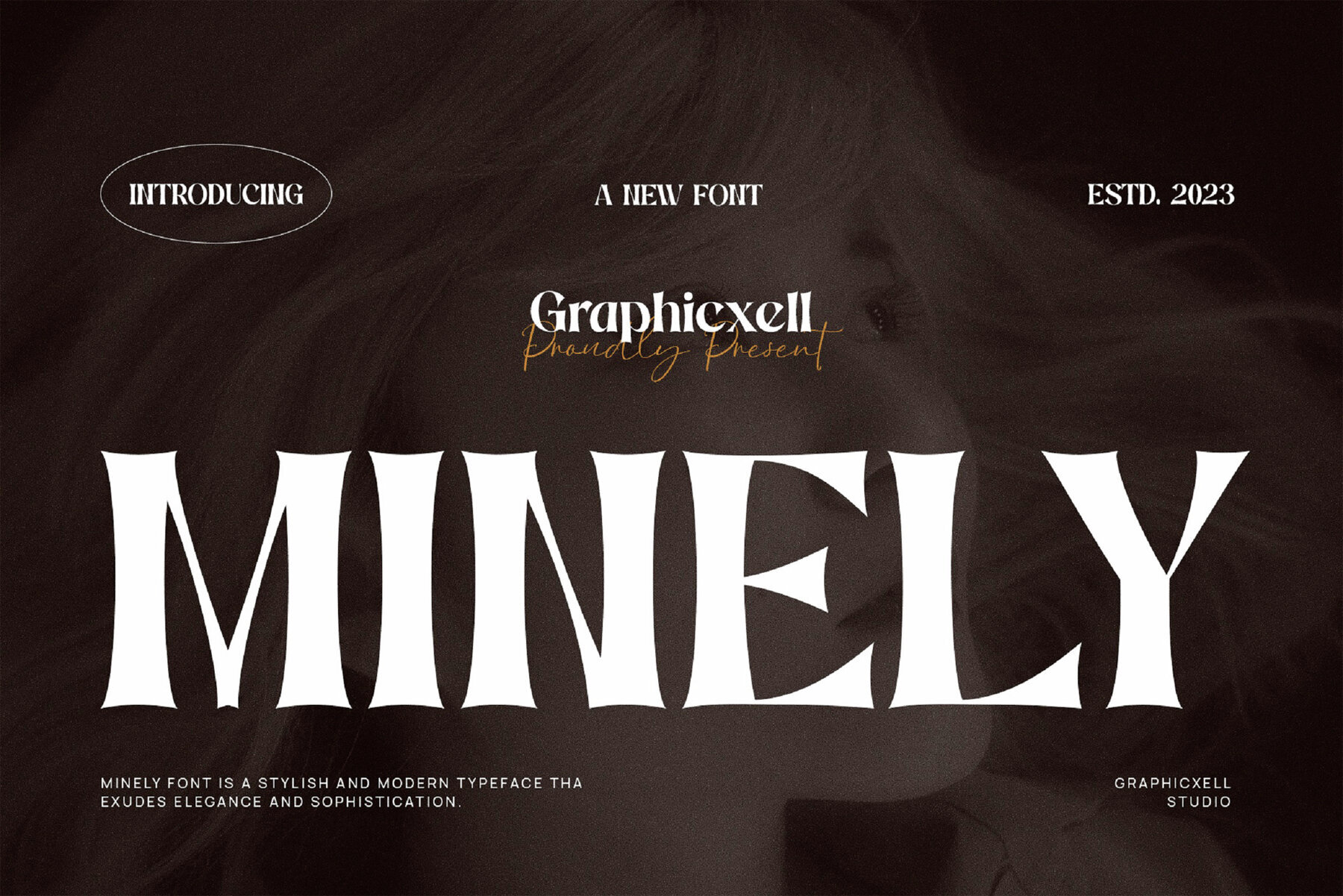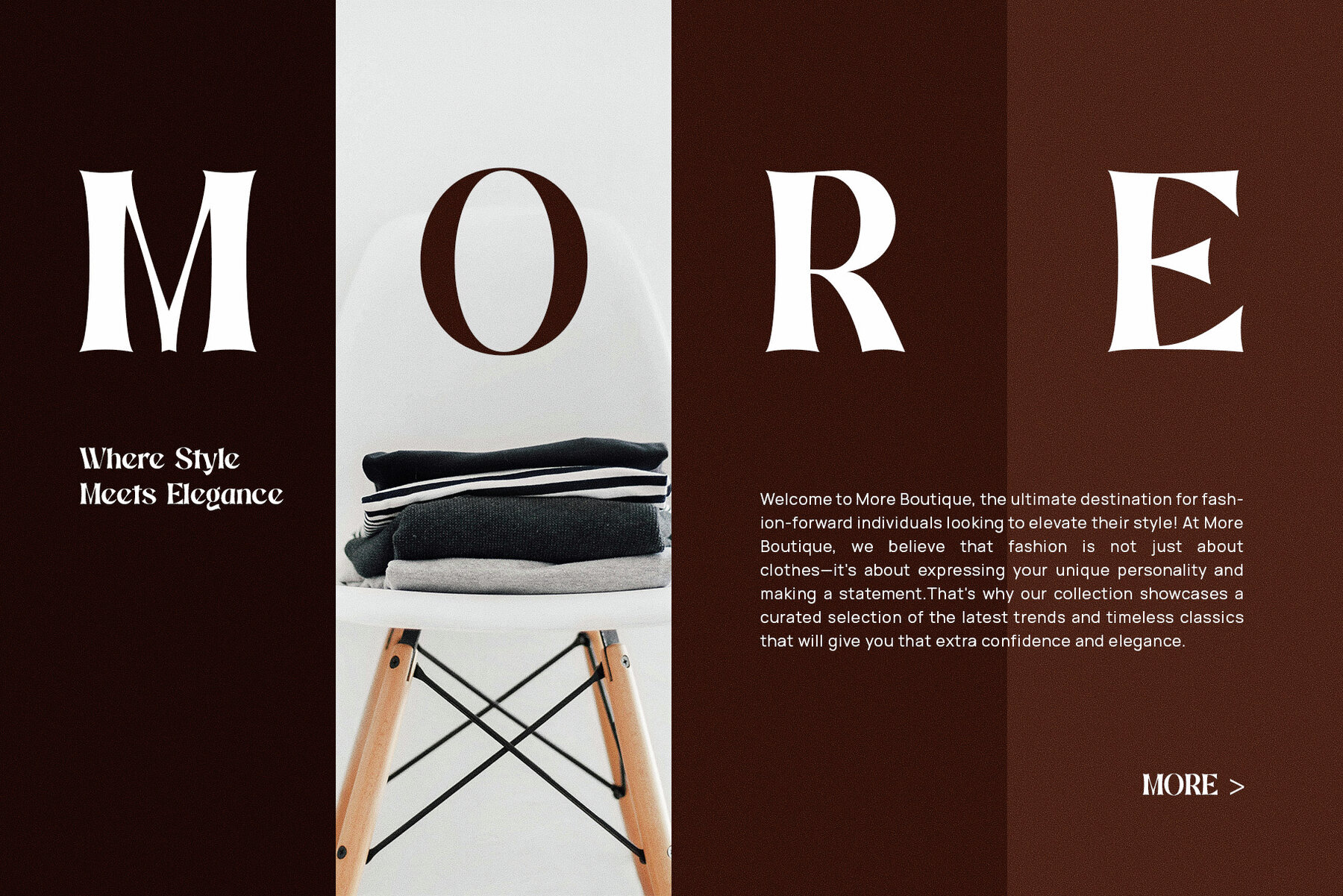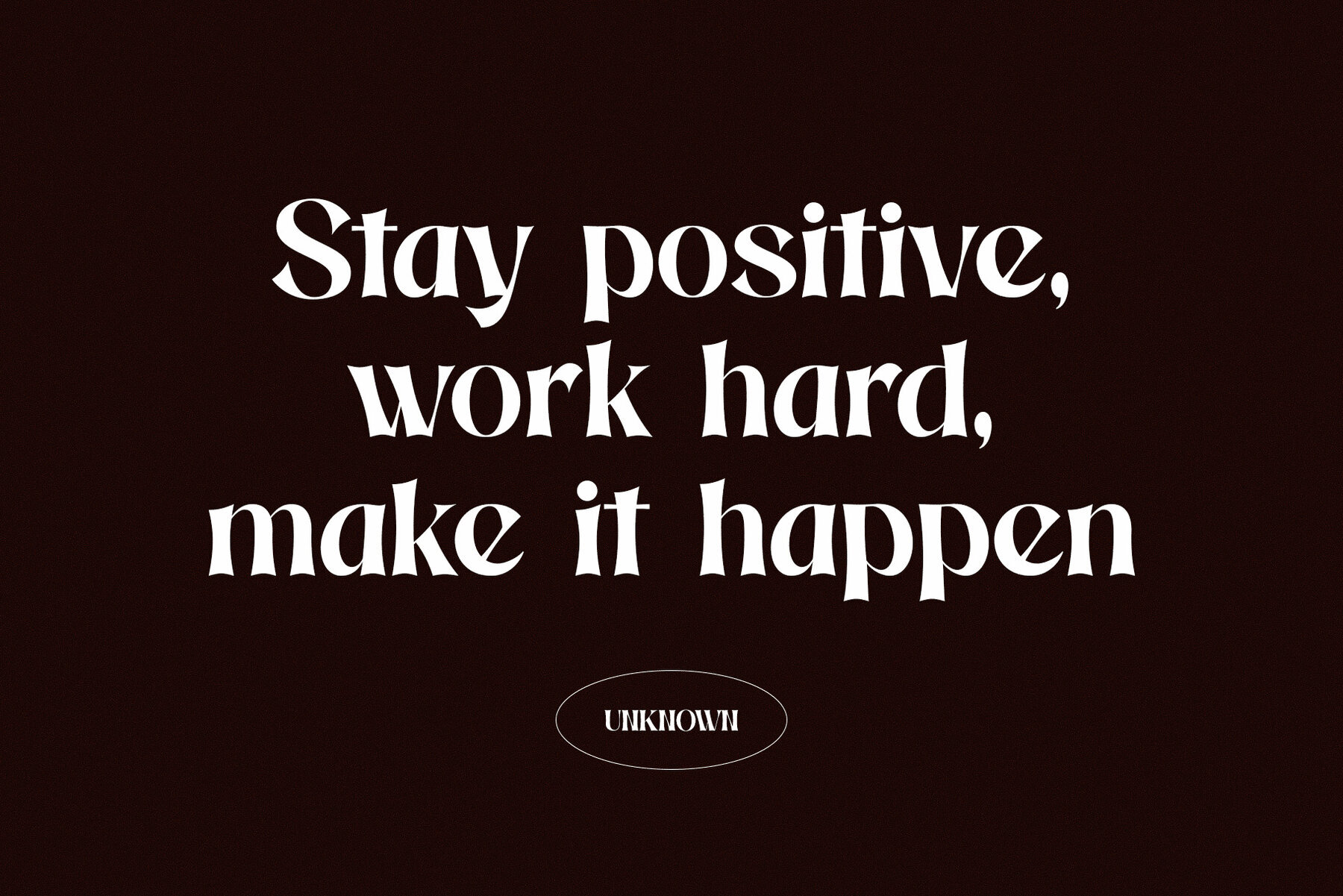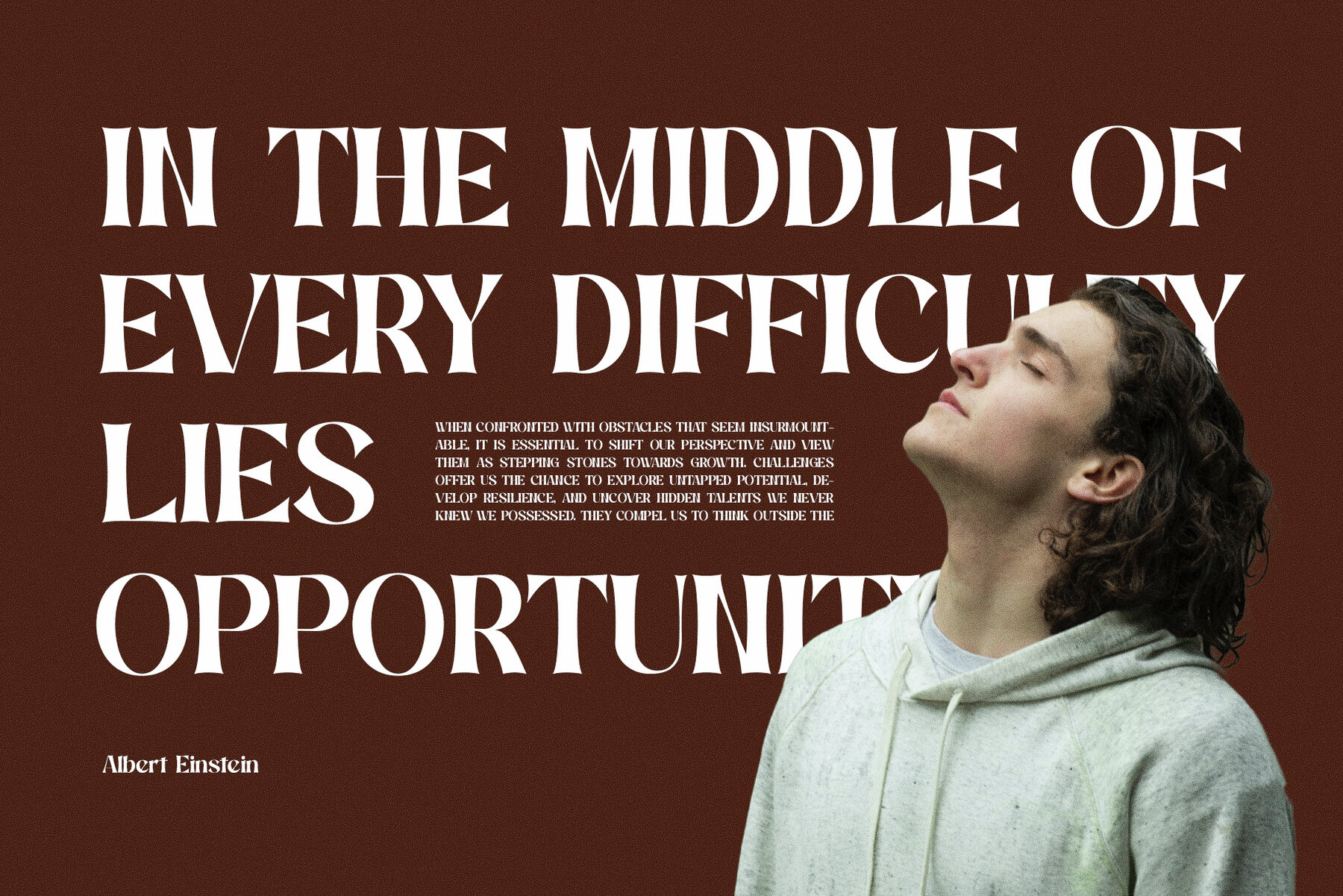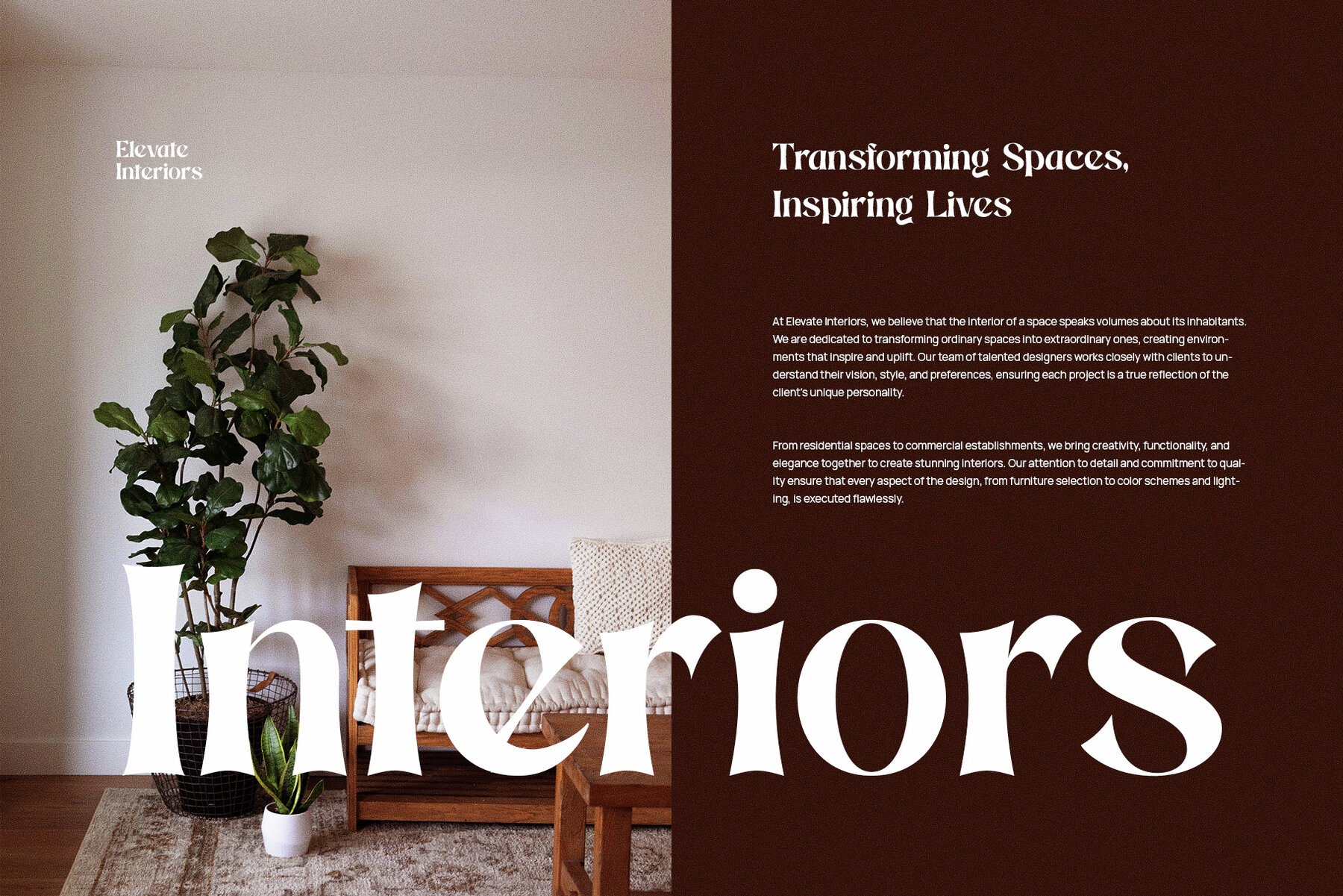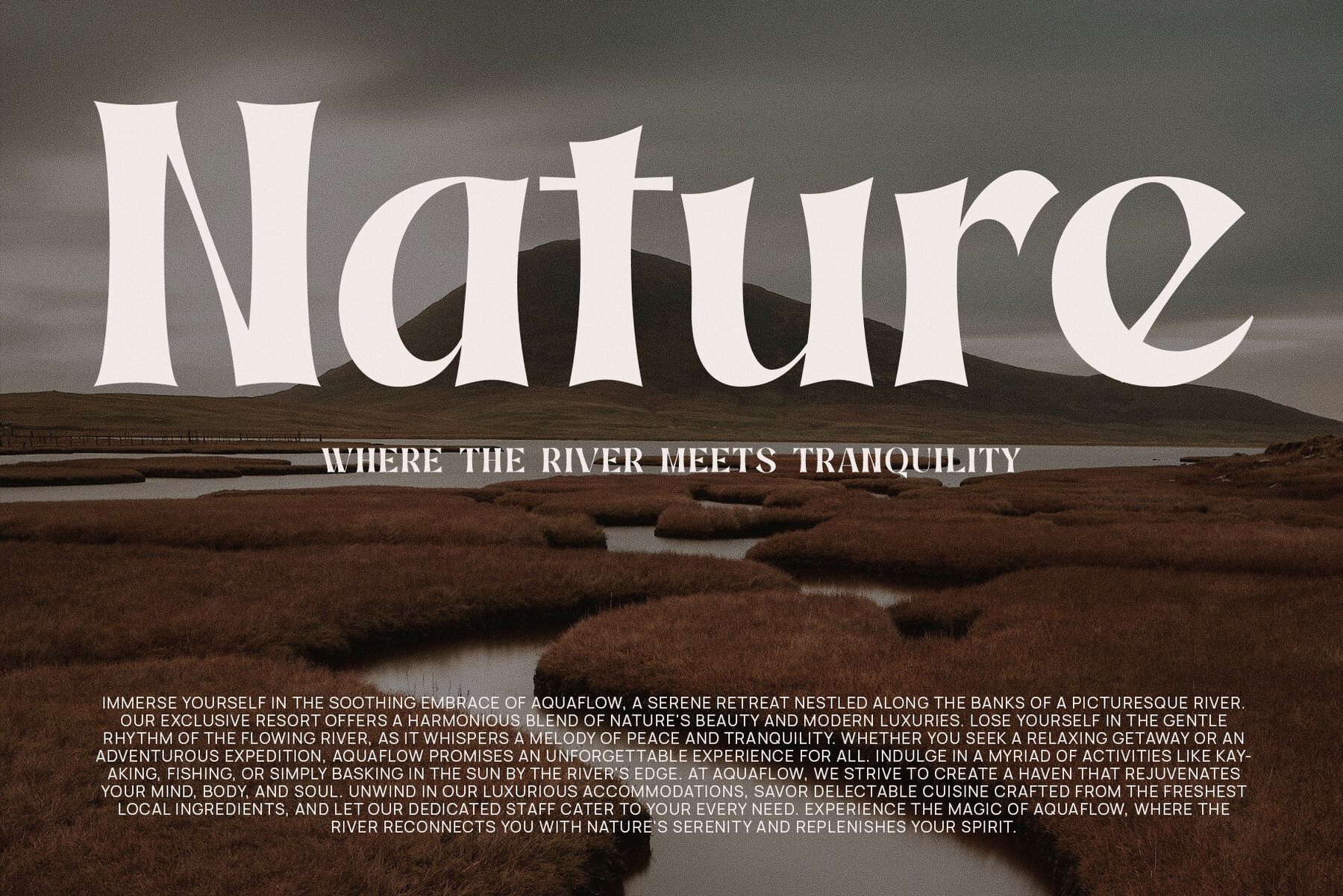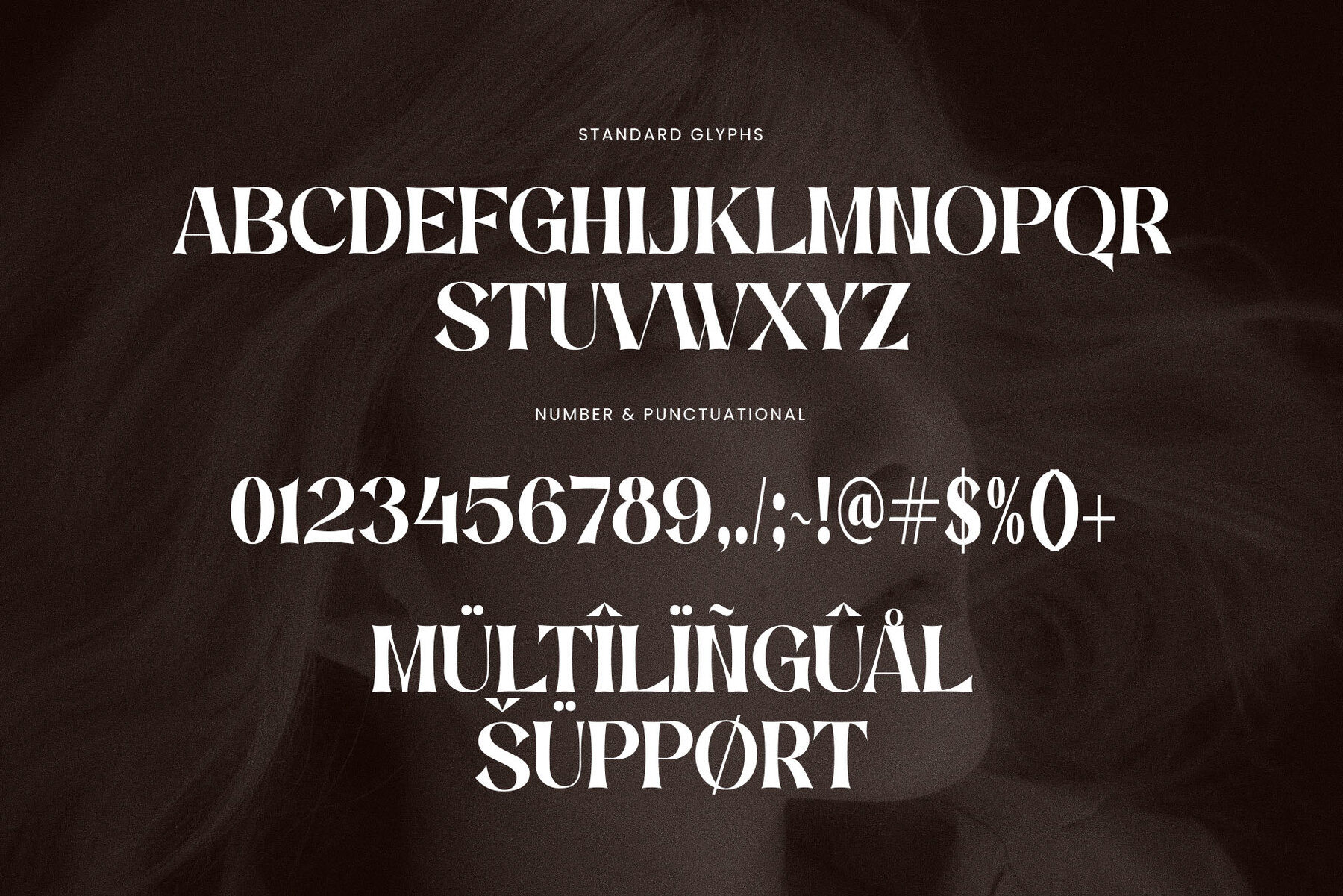
Minely Font
Minely Regular
Minely is a unique serif font that merges elegance with a modern aesthetic, perfect for enhancing your branding and logo designs. This distinguished typeface suits a wide range of creative projects, including branding initiatives, logos, wedding invitations, social media posts, advertisements, product packaging, and more. Crafted for high readability, Minely ensures your designs stand out. This font is best utilized with design software such as Adobe Illustrator or Adobe Photoshop. For any inquiries or assistance, feel free to reach out. Enjoy creating with the timeless elegance of Minely.Minely: Elegant Serif for Sophisticated Branding